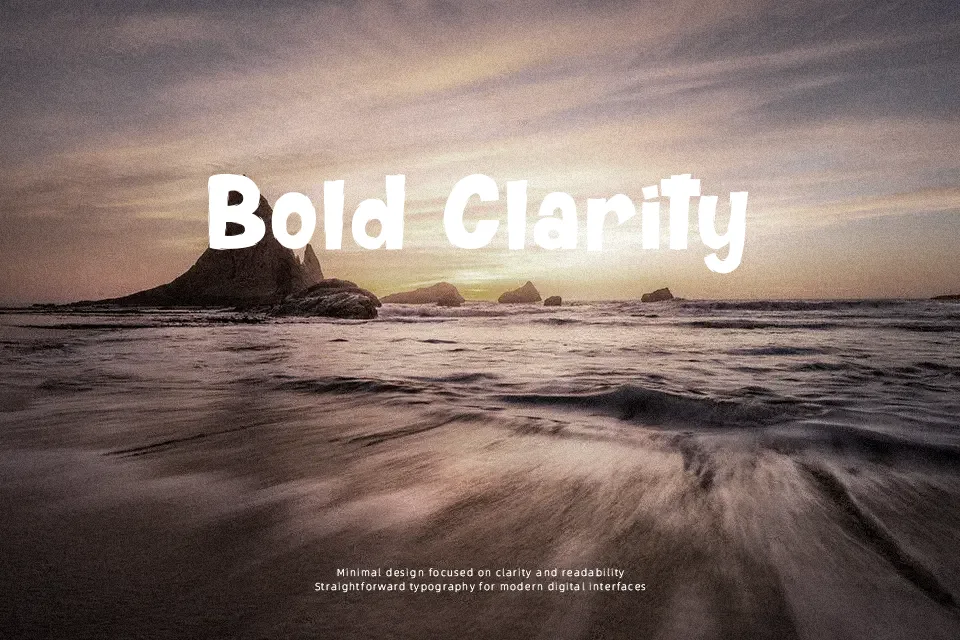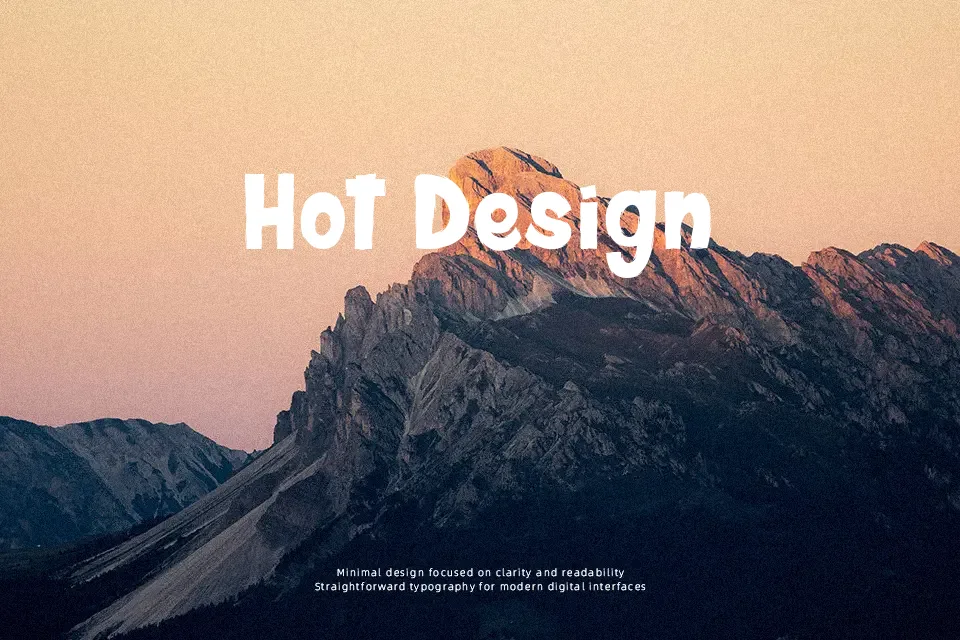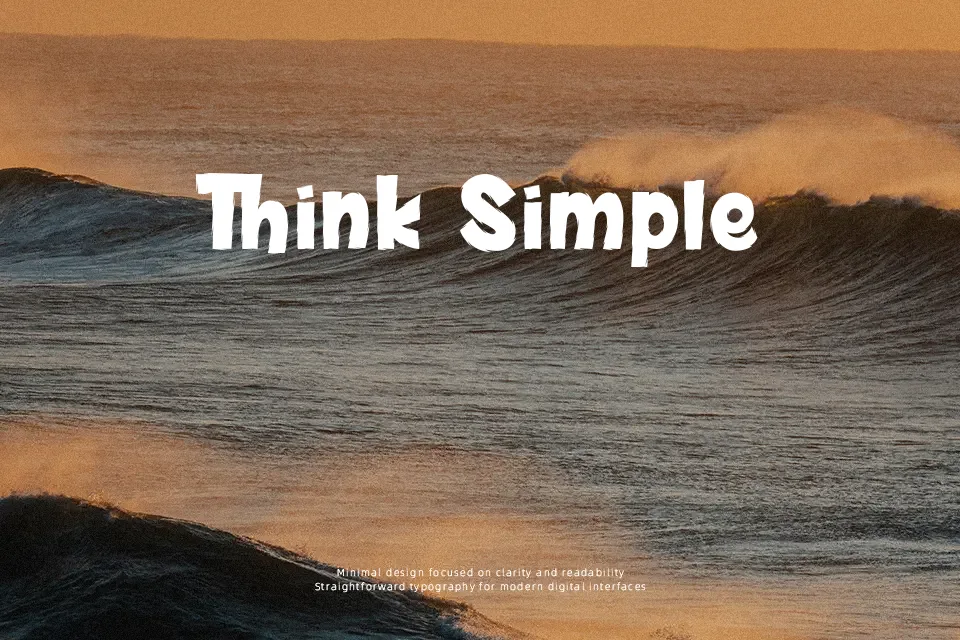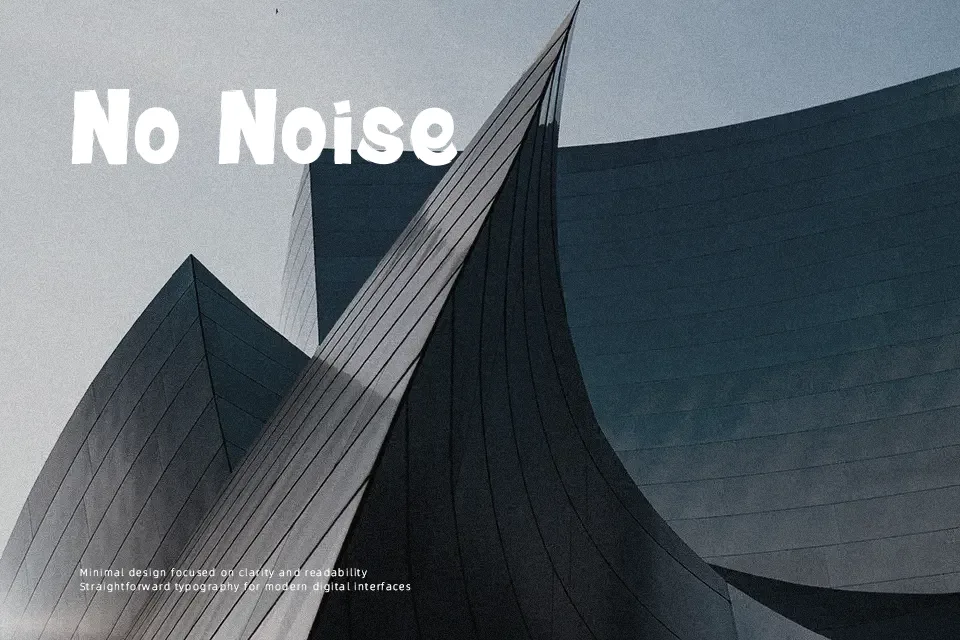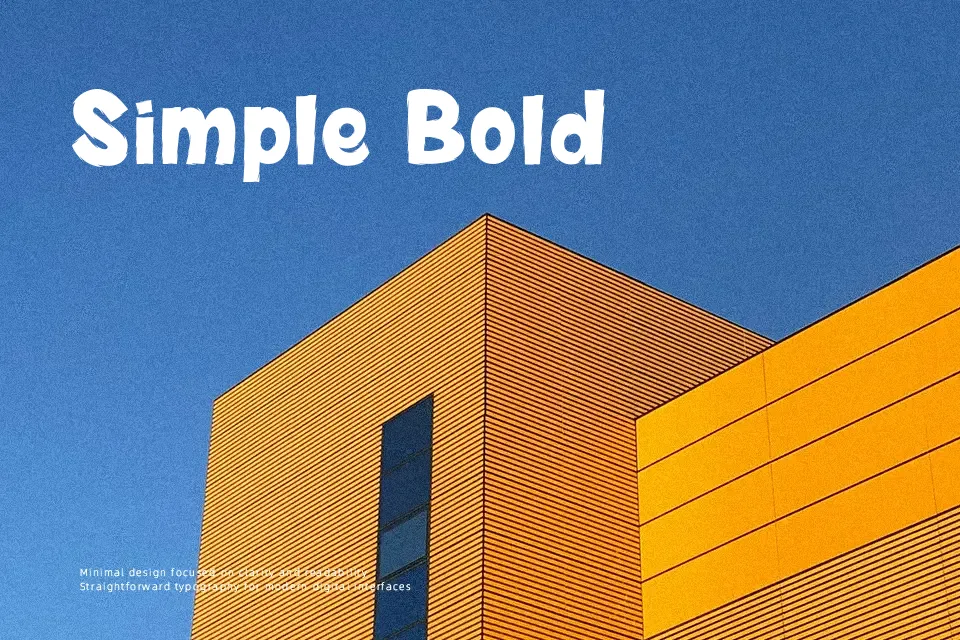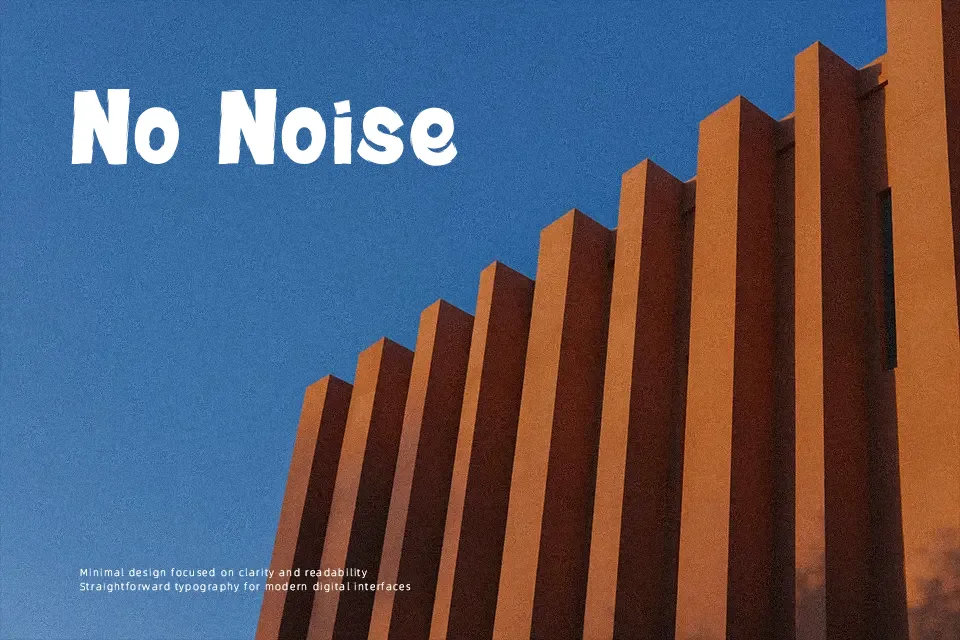
Spider Monkey Font
Designed by dcoxy - Greg Medina
Spider Monkey Font presents an exaggerated hand-drawn structure characterized by chunky strokes, softened corners, and playful vertical misalignment across individual glyphs. Wide character proportions paired with tight tracking generate compact, impactful headlines that draw immediate attention in poster layouts, board game packaging, and youth apparel graphics. Uppercase characters maintain consistent visual weight, while the slightly uneven baseline adds organic charm to brief phrases. However, dense letterforms reduce comfort during extended reading, making the design less suitable for continuous body copy or compact interface labels. When displayed at substantial point sizes, the typeface preserves clear letter boundaries while establishing an unmistakable comic aesthetic.
Best For: children’s book titles, cartoon posters, casual game interfaces, snack packaging
Not Ideal For: long paragraph text, corporate reports, mobile app body copy, technical manuals